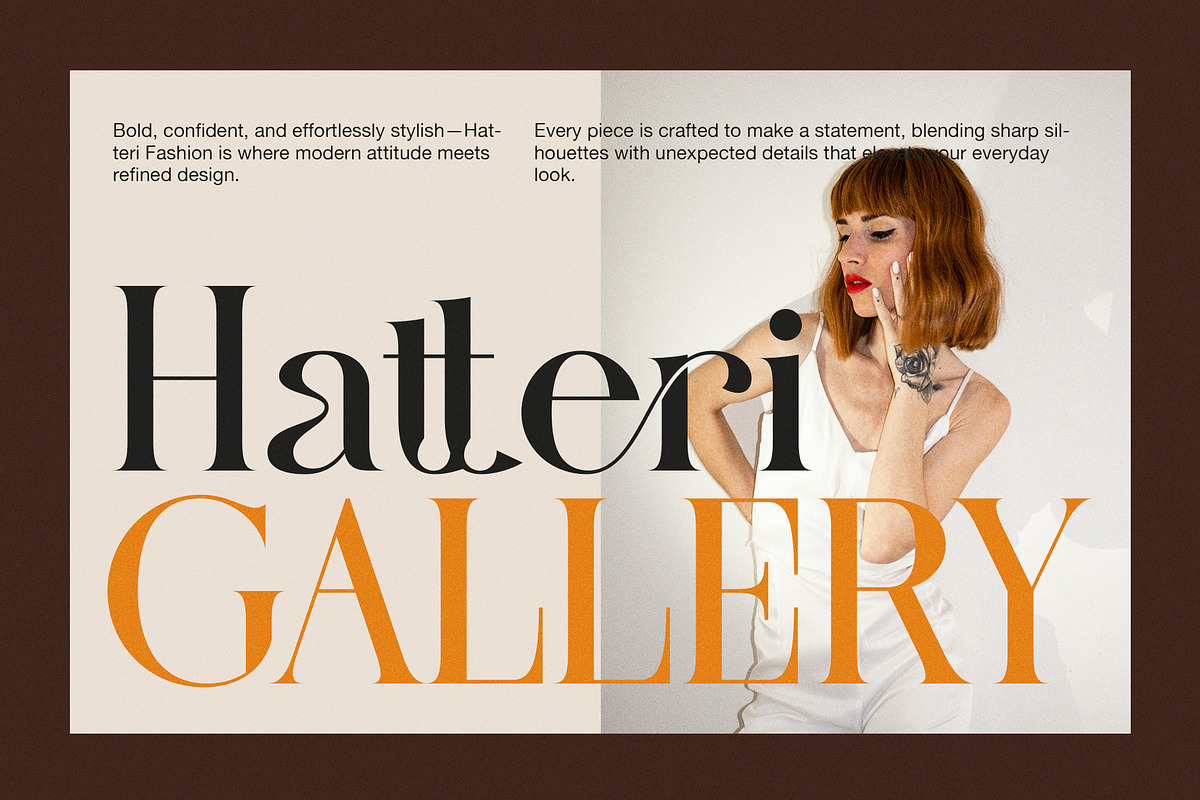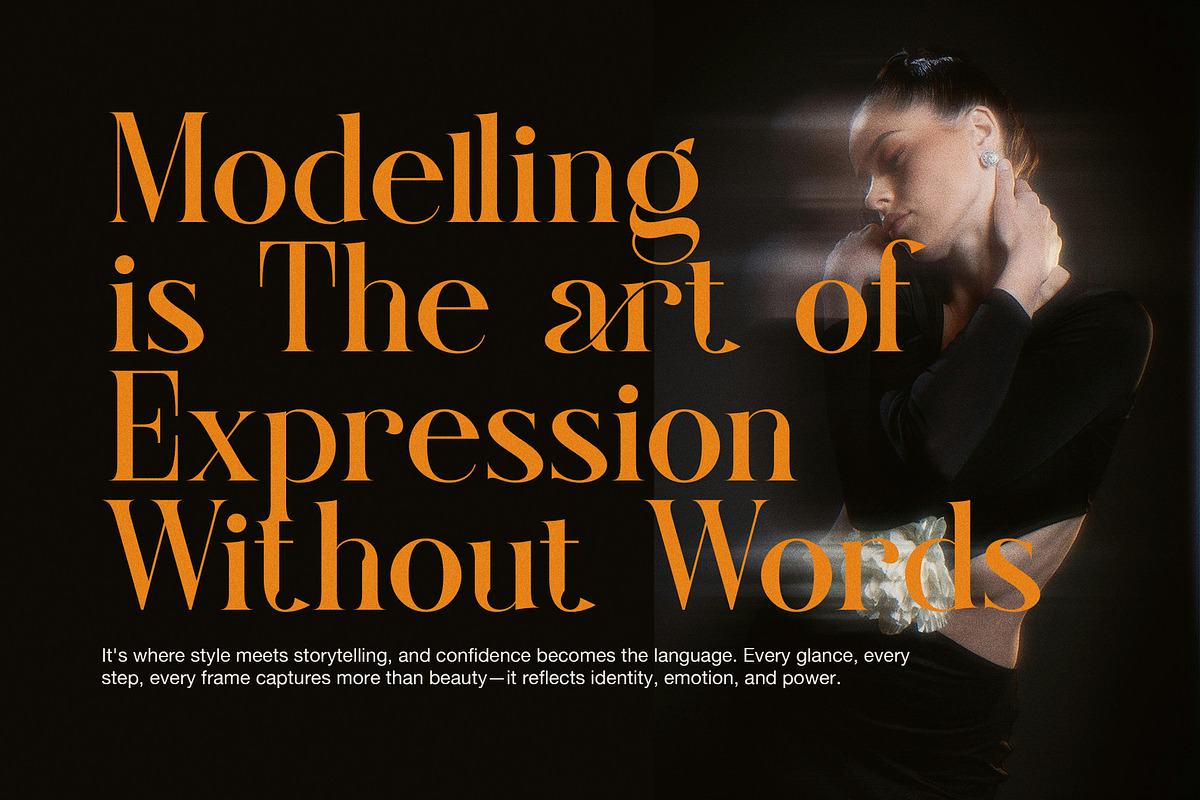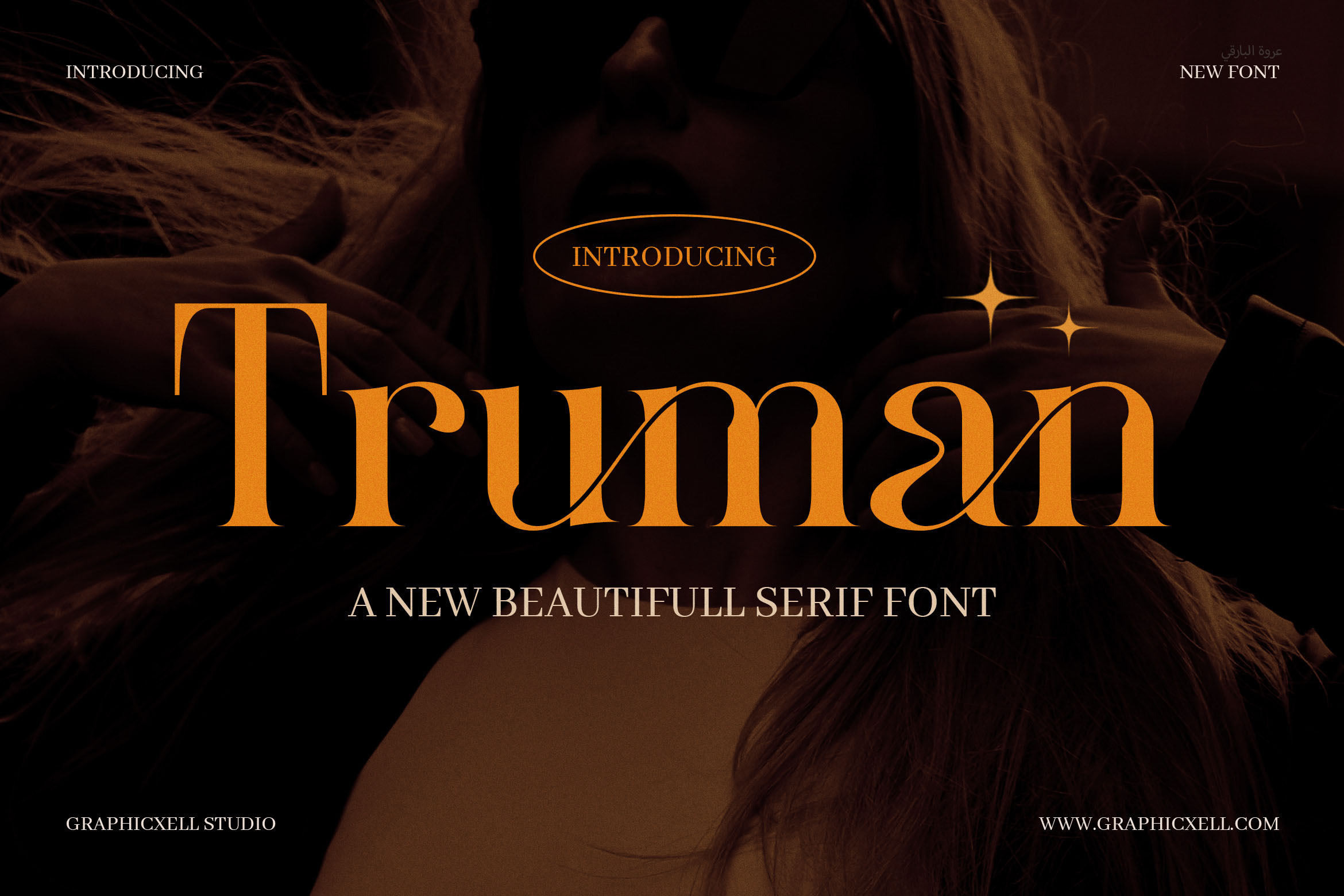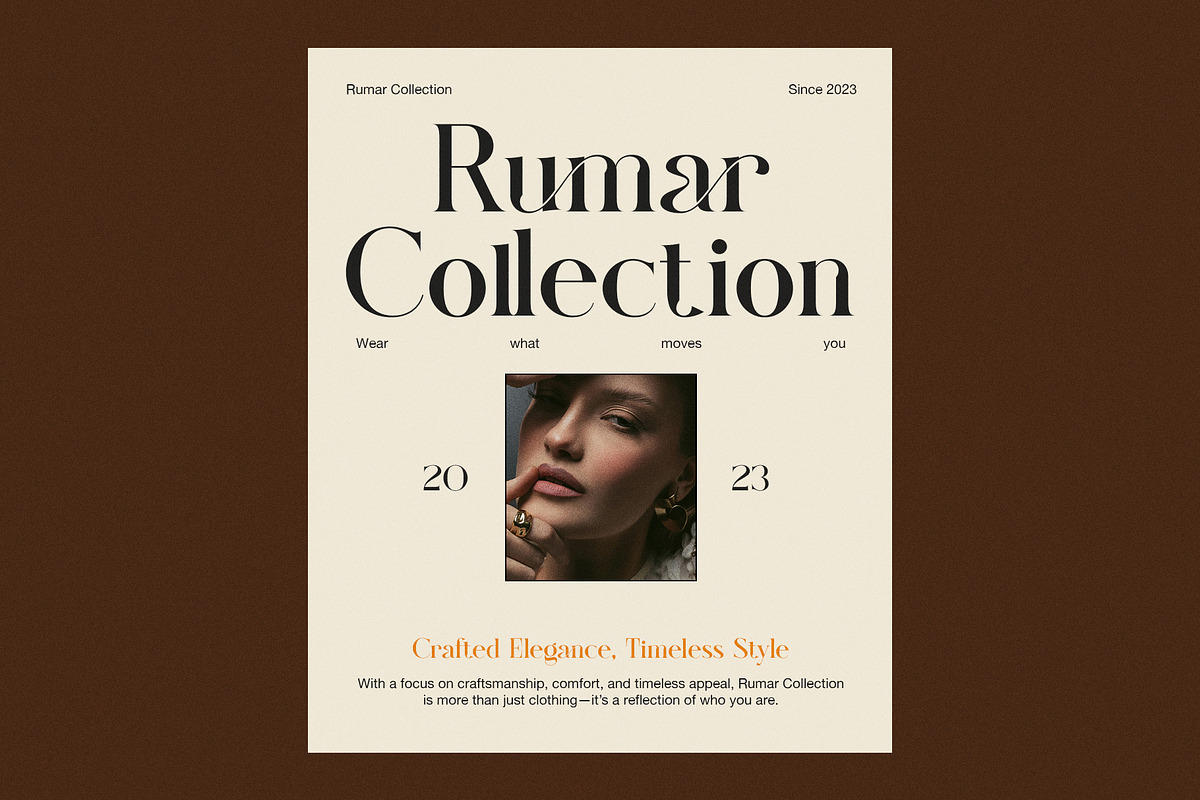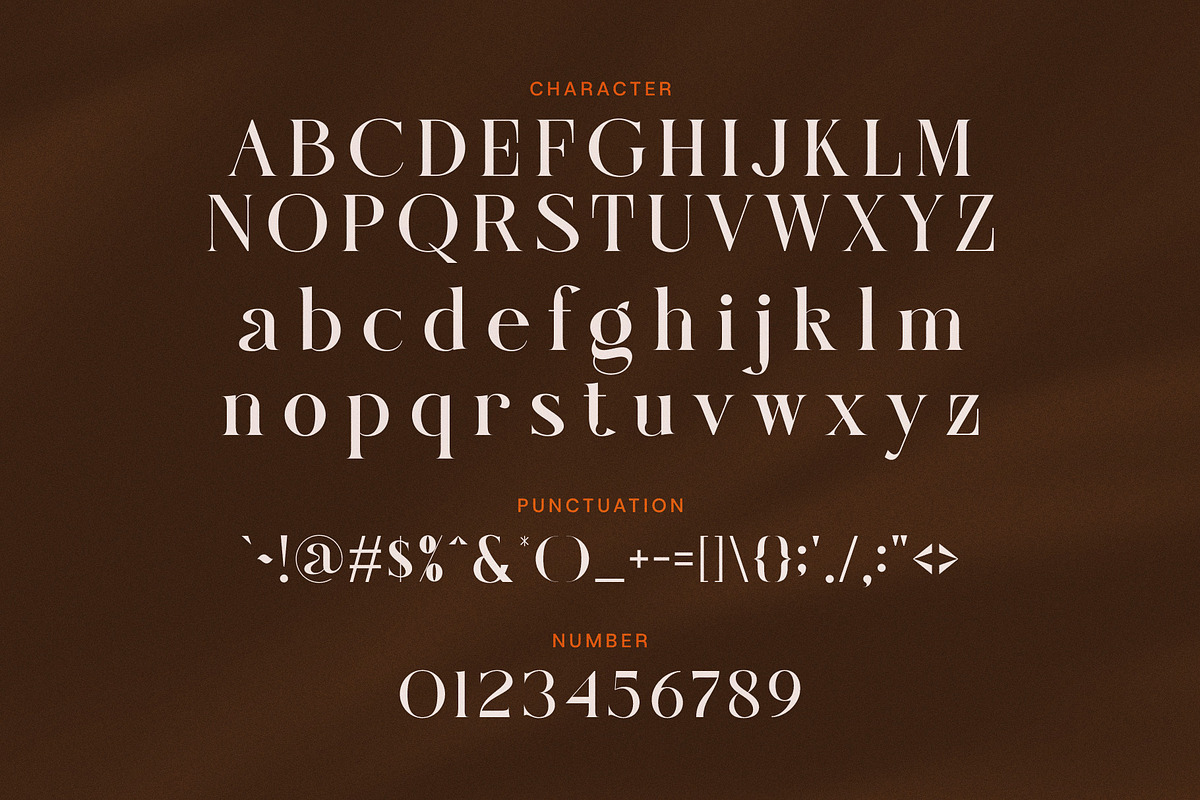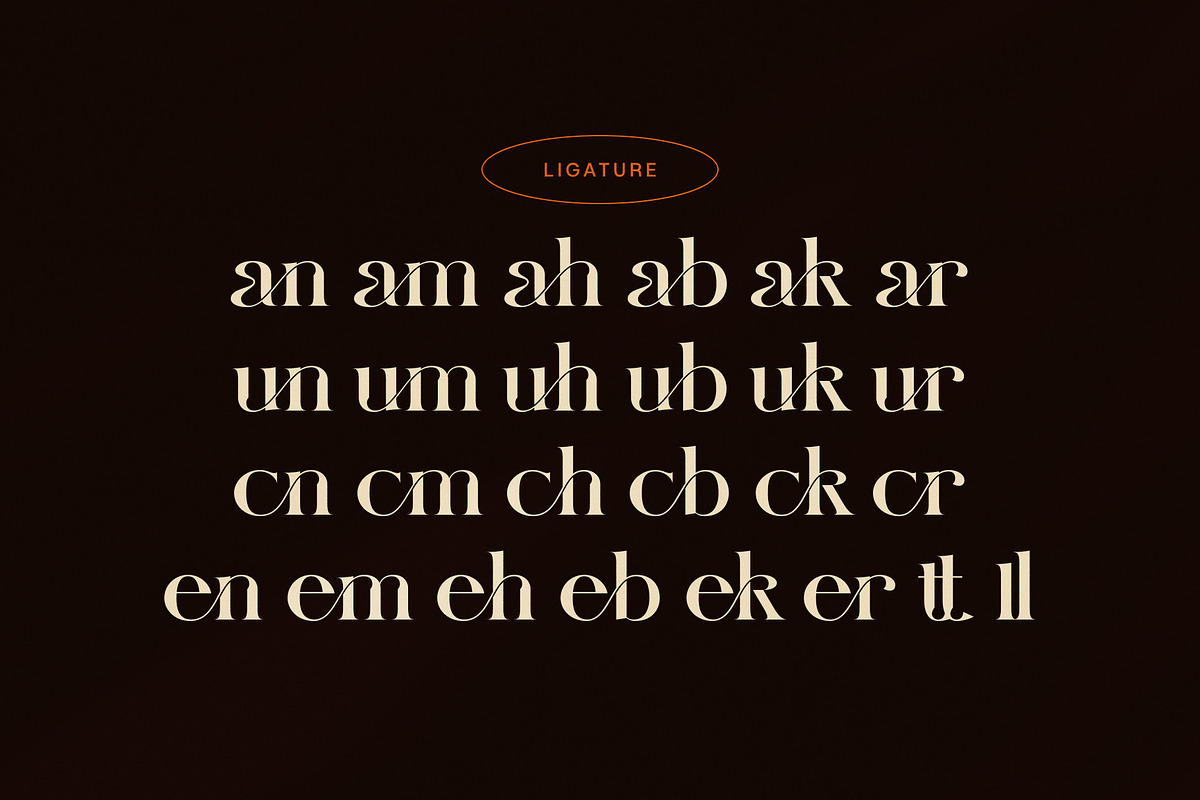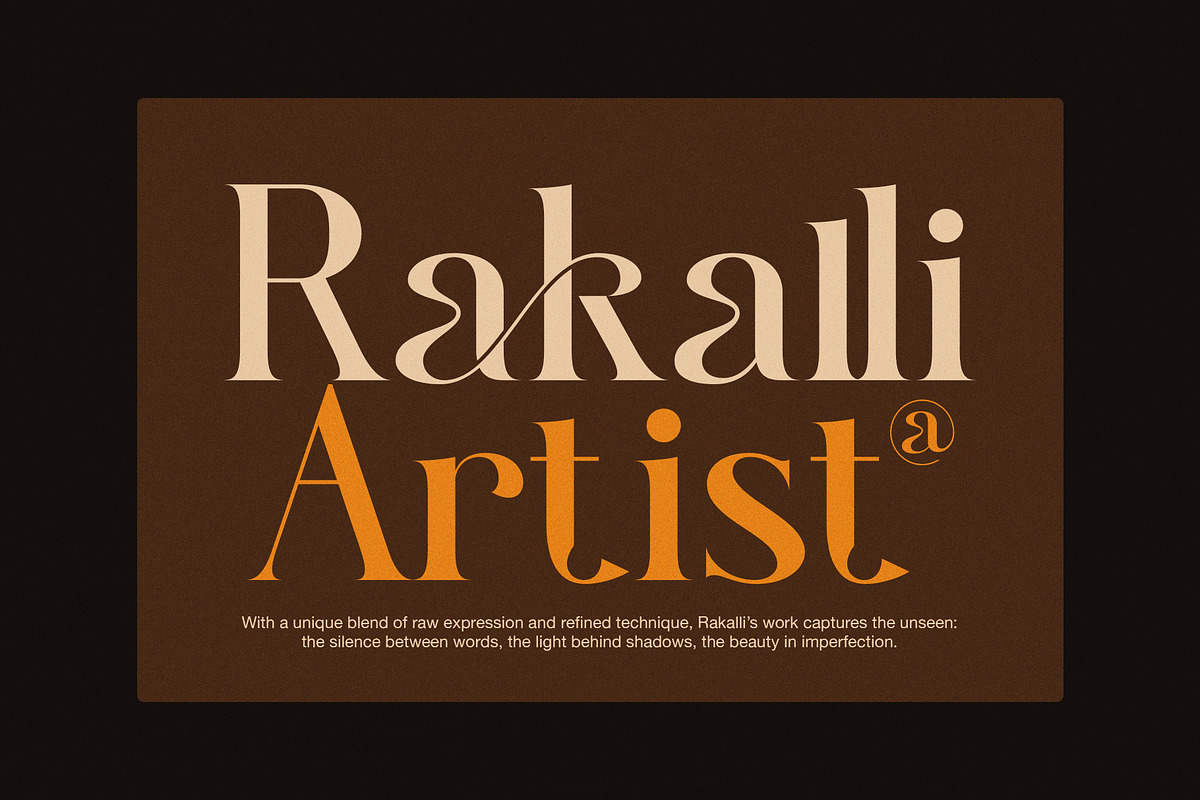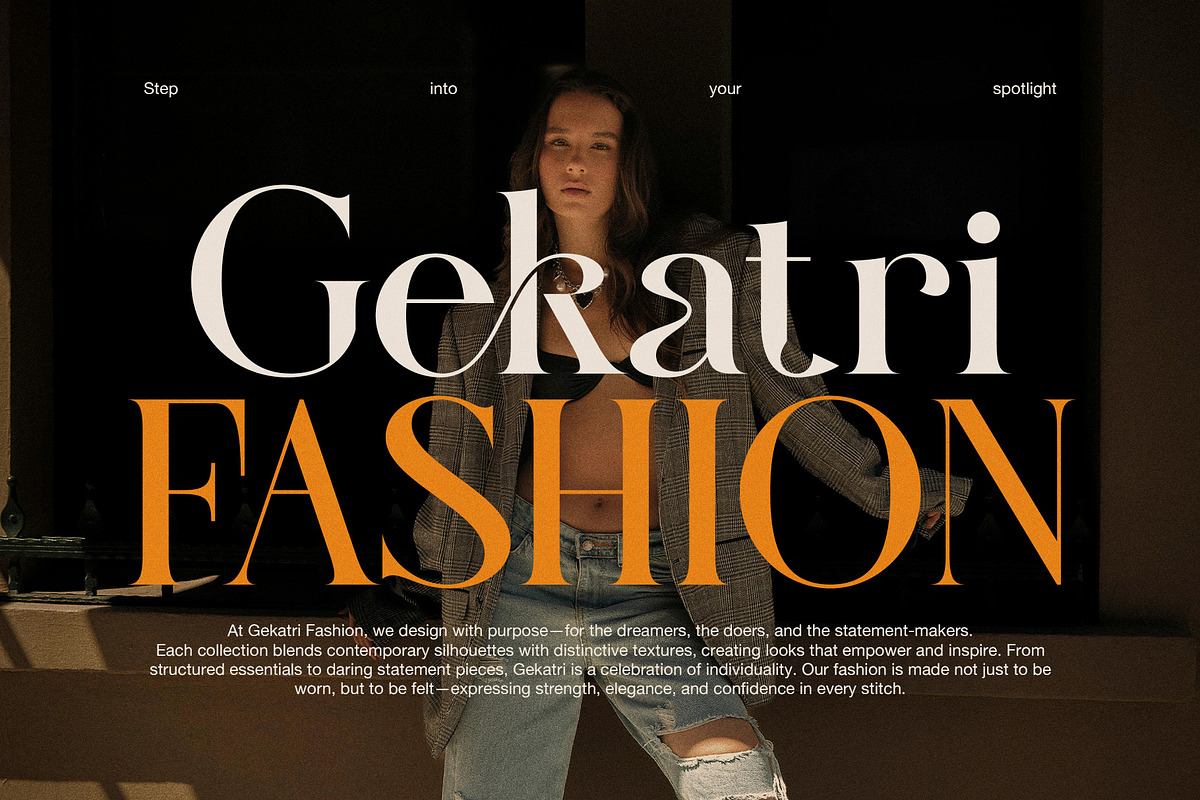
Truman Serif Font
Truman Serif Font is a bold and elegant serif typeface that adds confidence and style to any design. Its modern curves and classic roots create a strong visual impact, making it perfect for branding, headlines, editorials, posters, and packaging.
Unlike many serif fonts that feel too formal or outdated, Truman brings a fresh, updated feel while still keeping its timeless charm. It features sharp serifs, clean lines, and balanced spacing, which help your text stay bold and readable across all sizes.
You can use Truman for both print and digital projects. It looks crisp on screens and remains sharp on paper. Whether you're working on a logo, a magazine spread, or a website header, this font offers clarity and character.
Moreover, Truman is easy to pair with other fonts. You can match it with sans-serifs for a modern look or with scripts for a stylish contrast. Its versatility allows it to fit into many creative themes, from fashion and lifestyle to tech and business.
Why choose Truman Serif Font:
Bold, modern serif with a timeless look
Ideal for logos, headlines, and branding
High readability, even in smaller sizes
Clean, well-structured letterforms
Great for both print and web design
Includes uppercase, lowercase, punctuation, and symbols
Works well with both sans-serif and script fonts
Adds authority and style to any project
Designers choose Truman when they need a font that feels both strong and elegant. Its balanced style brings professionalism without being too rigid. Plus, its bold presence ensures your work stands out.
If you’re looking for a font that delivers both power and beauty, Truman Serif is the right fit. Try it in your next project to create bold, stylish designs that leave a lasting impression.